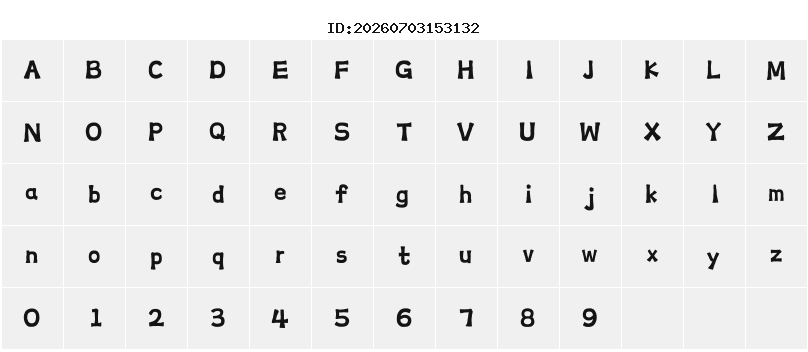
336-上首雅居体 Preview
• Font Name: 336-上首雅居体
• Font ID: 336-SSYaJuTi:Version 4.00
• Full Font Name: 336-上首雅居体
• Version: Version 4.00 June 24, 2024
• PostScript Name: 336-SSYaJuTi
• Character Count: 7568
• Manufacturer: 上首造字
About 336-上首雅居体.ttf
336-上首雅居体.ttf is a modern, elegant sans-serif font designed for ultimate readability and visual harmony. Perfect for branding, headlines, web design, and print materials.